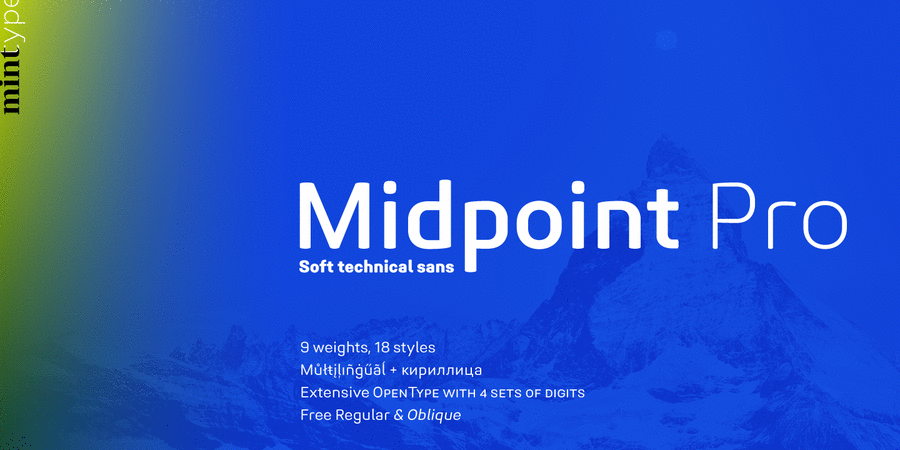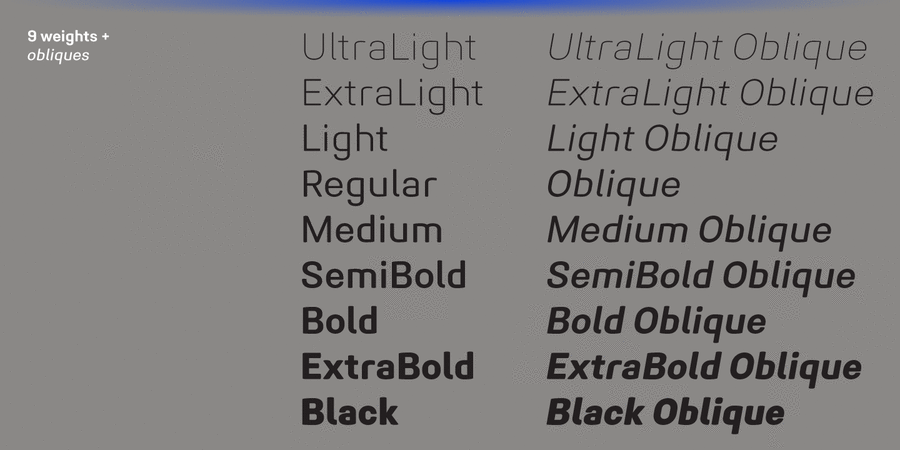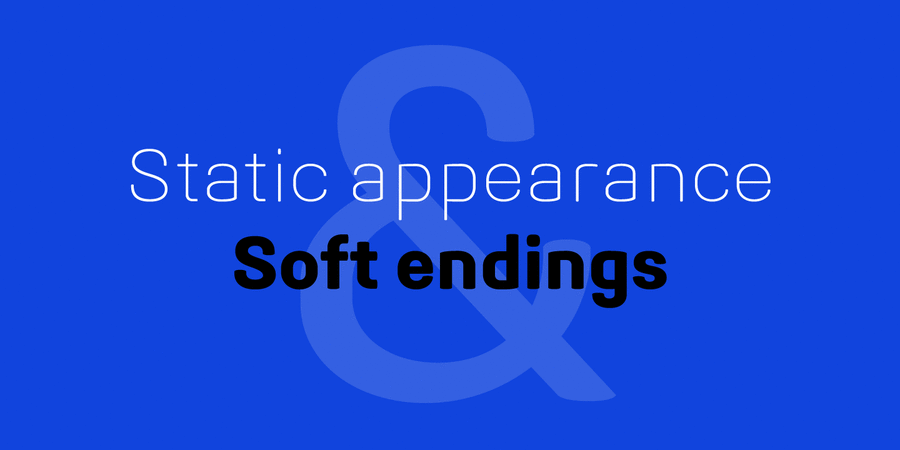
About Midpoint Pro is a soft sans-serif typeface with a modern technical look. Its spurless design creates a perfect balance between static rigid verticals and softened endings. The interplay of open and closed forms suggests increased legibility in small sizes and results in a vivid texture.
The typeface will serve for a number of purposes, including posters, corporate branding or screen design of any kind like web or UI layouts.
Midpoint Pro comes in 9 weights + oblique styles, each supporting numerous Latin-based languages as well as major Cyrillic languages. It is packed with OpenType features like ligatures, small caps, 4 sets of digits, 2 stylistic sets, superiors and inferiors, fractions, ordinals, respective punctuation varieties including all-cap punctuation, as well as language-specific alternates. The typeface was designed and released by Oleh Lishchuk in Mint Type foundry in 2016.